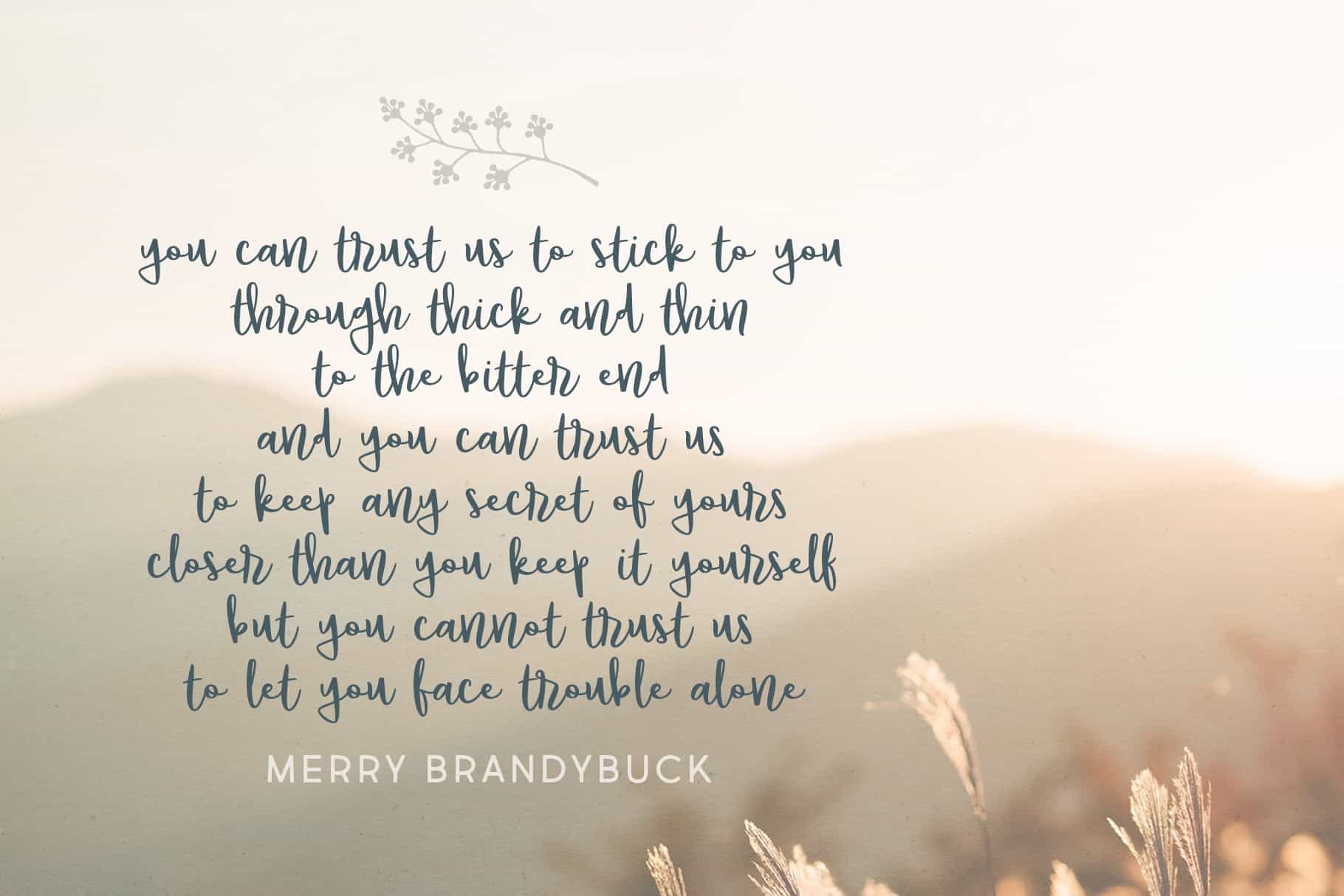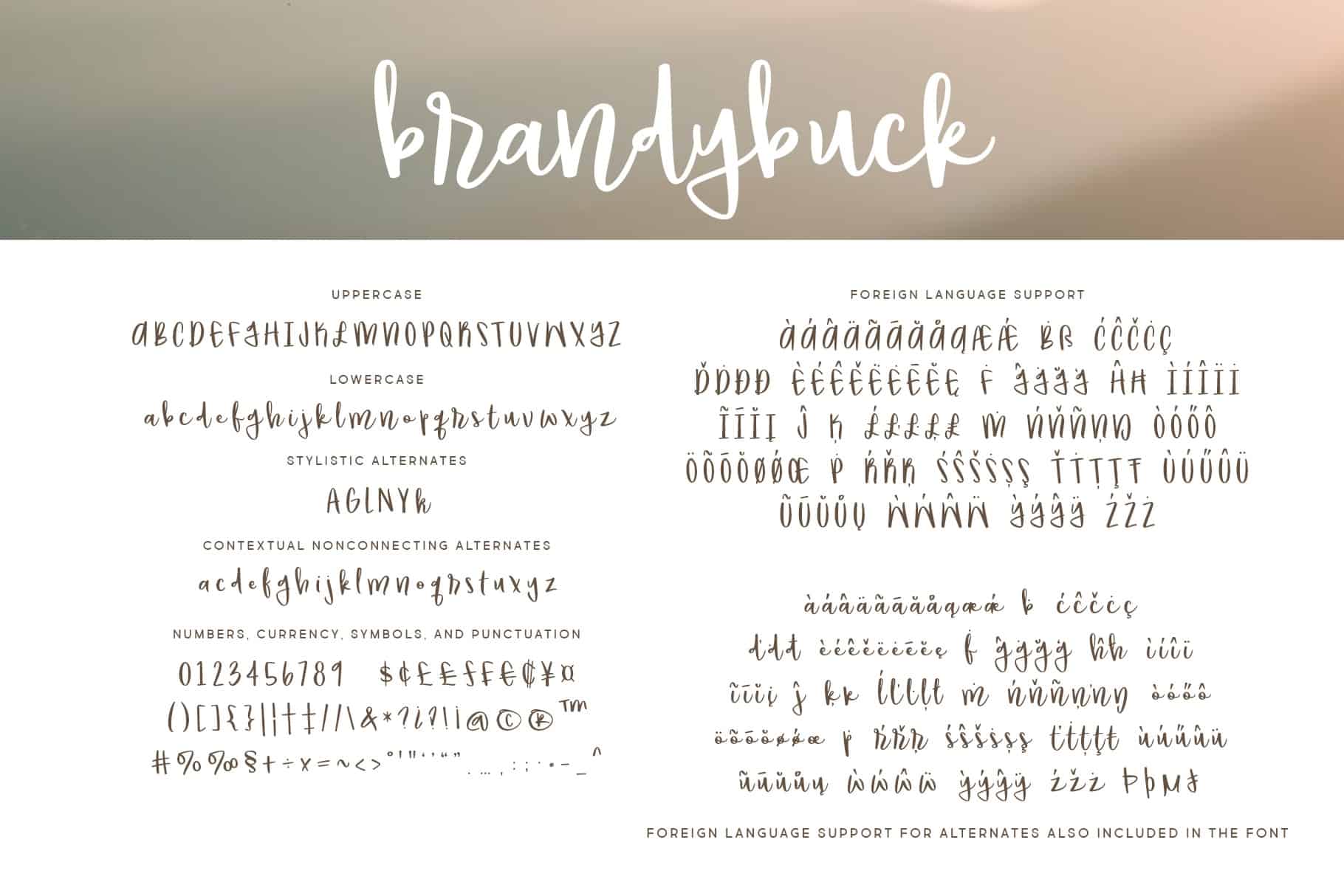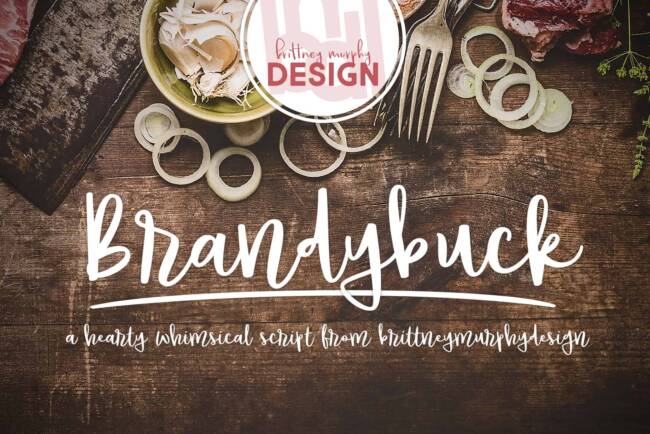
Brandybuck Font
The Brandybuck font is a hearty, whimsical, handdrawn script font created in 2020 by Brittney Murphy Design. Brandybuck currently features 531 characters and supports most latin based languages, and also has non connecting alternatives for some lowercase letters to give it a more natural look for certain letter combinations. With a playful and whimsical feel, our Brandybuck font is great for your crafts, logos, and other graphic design projects.